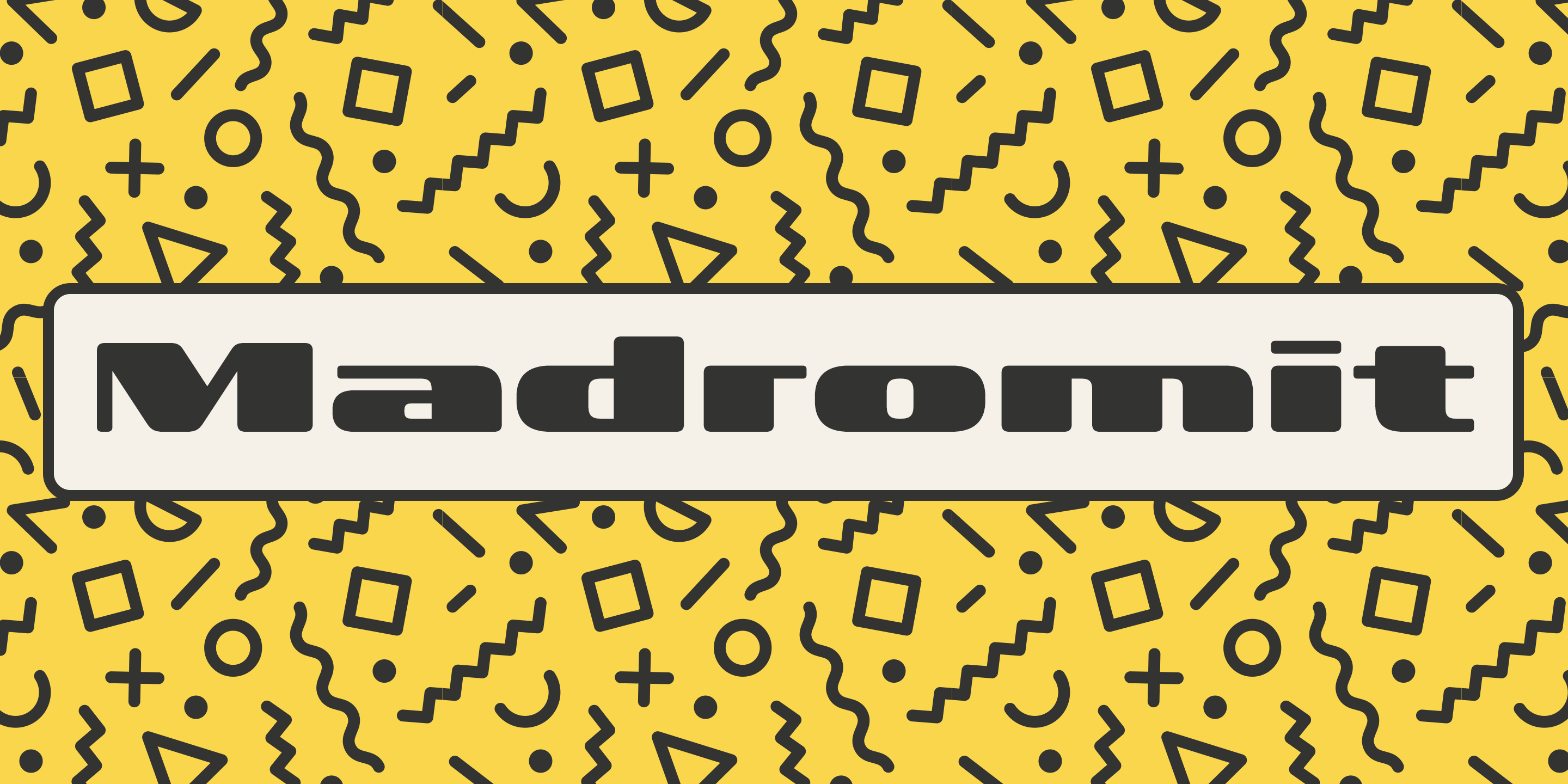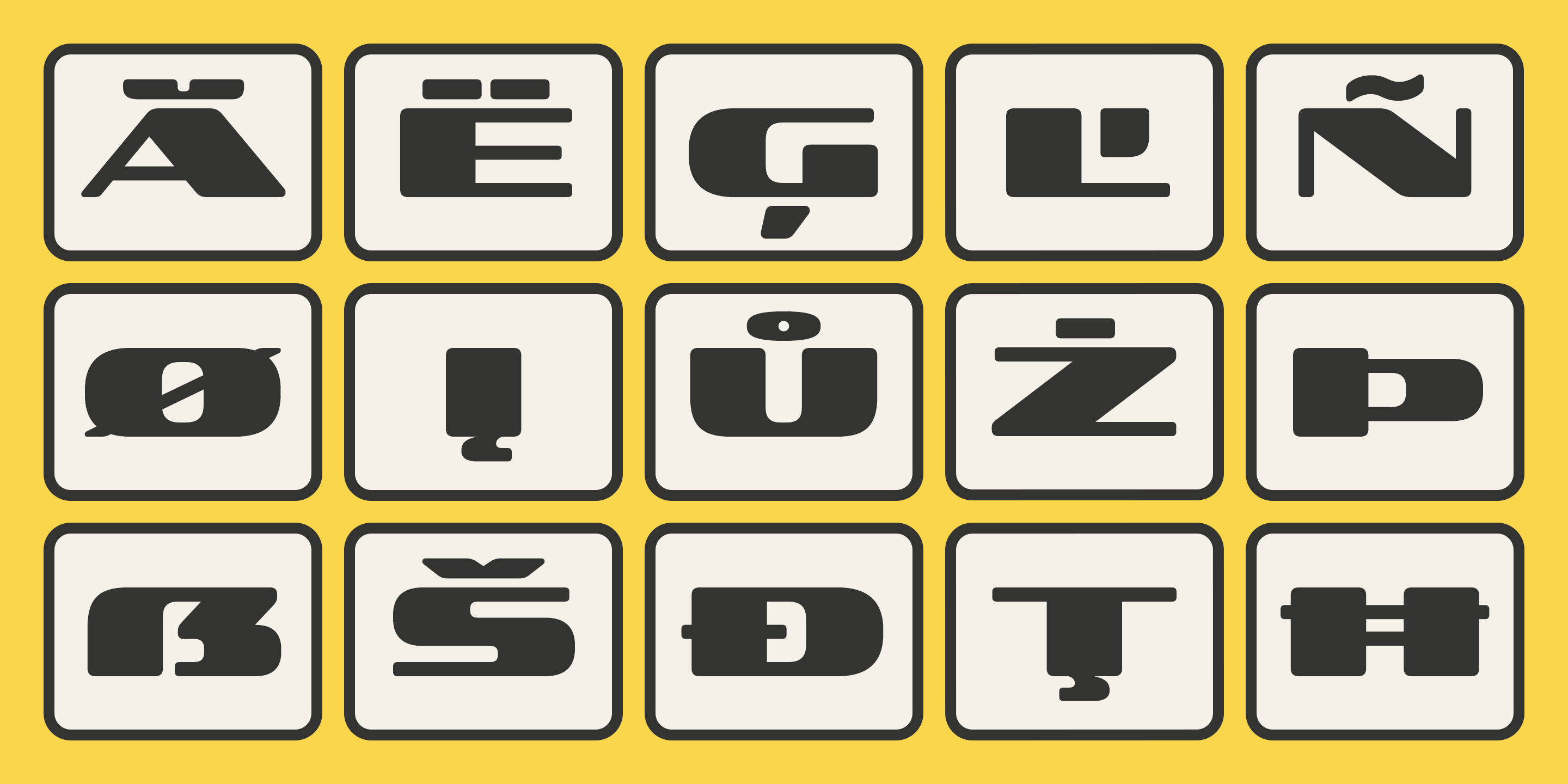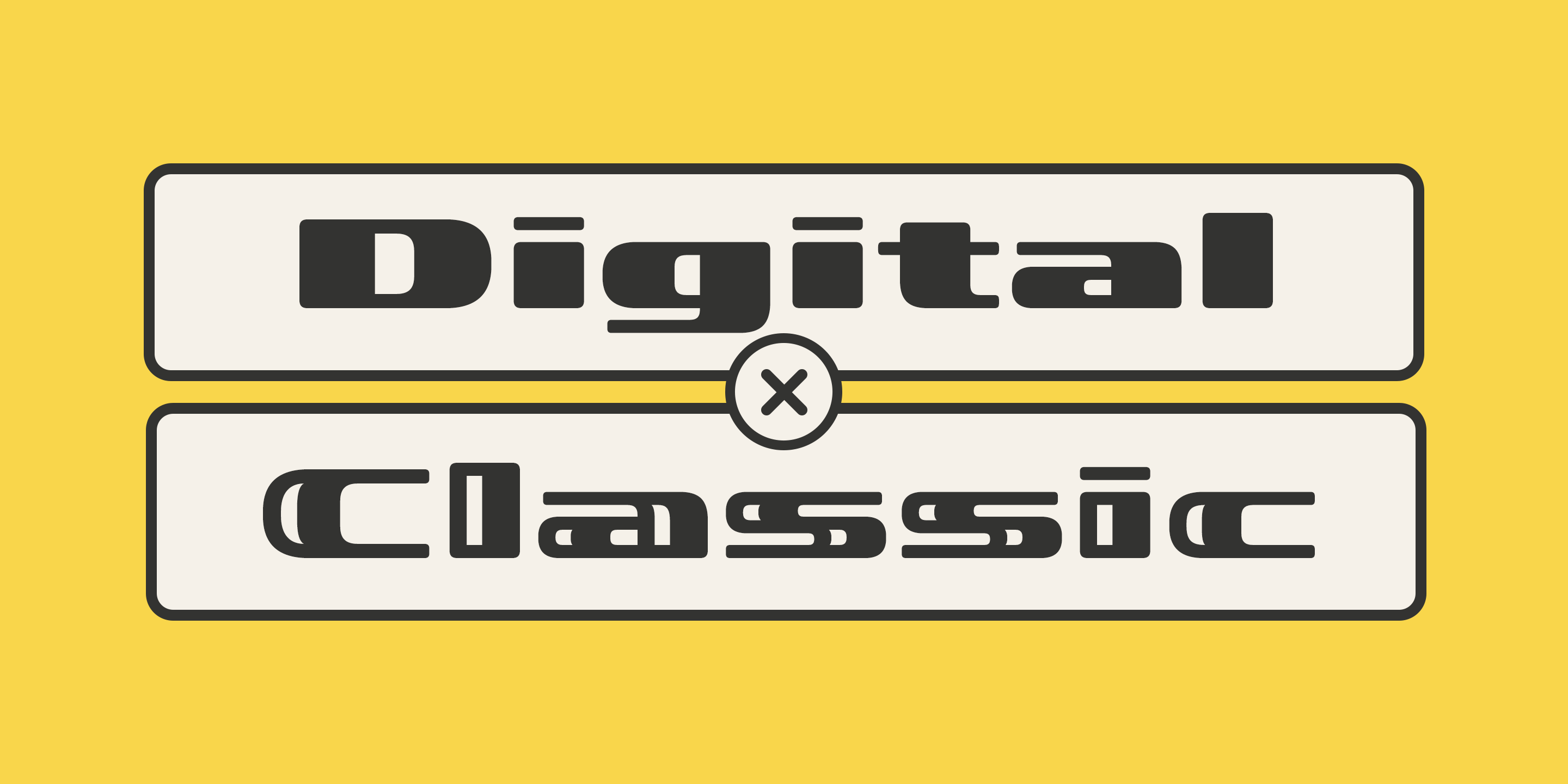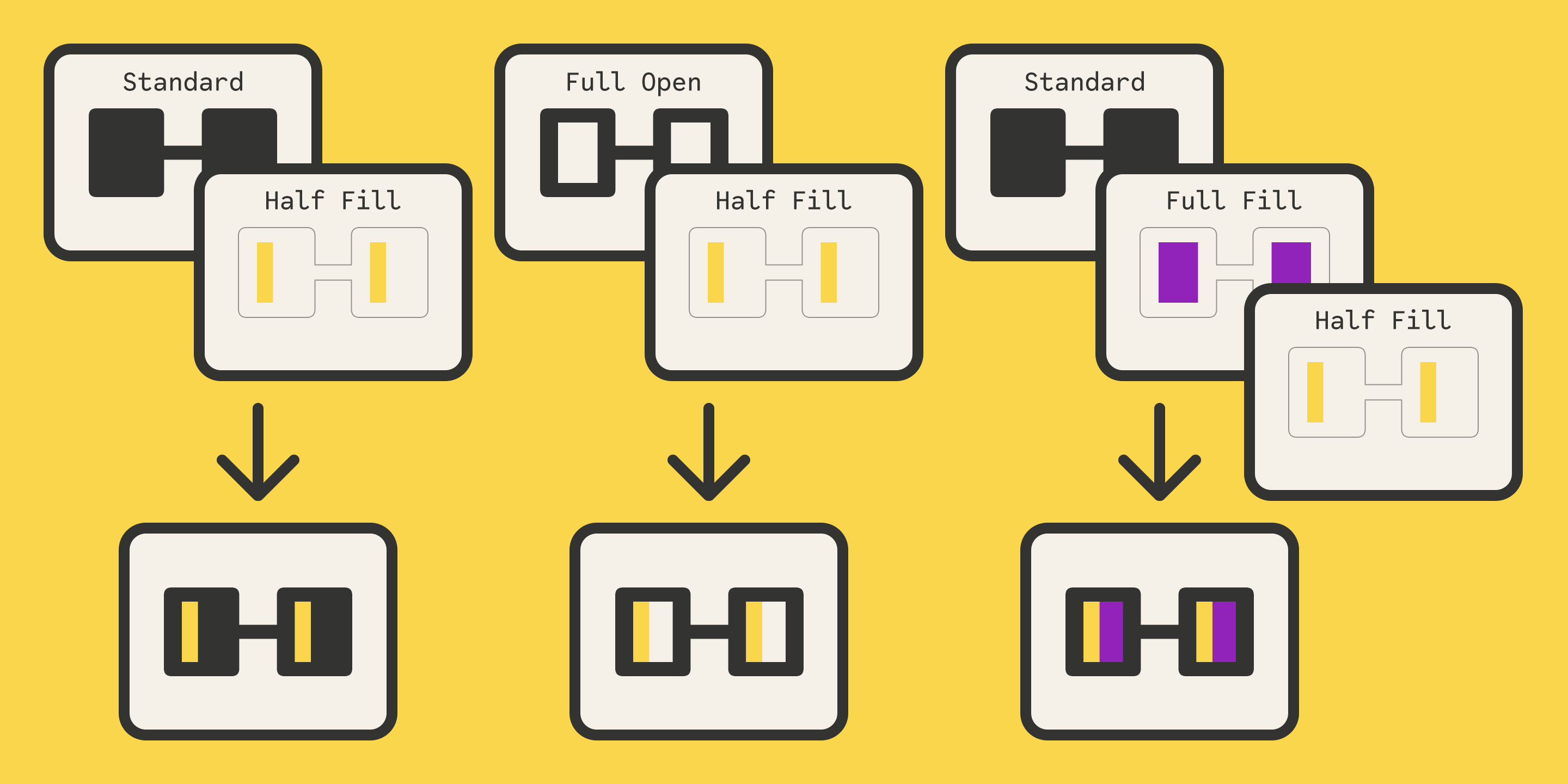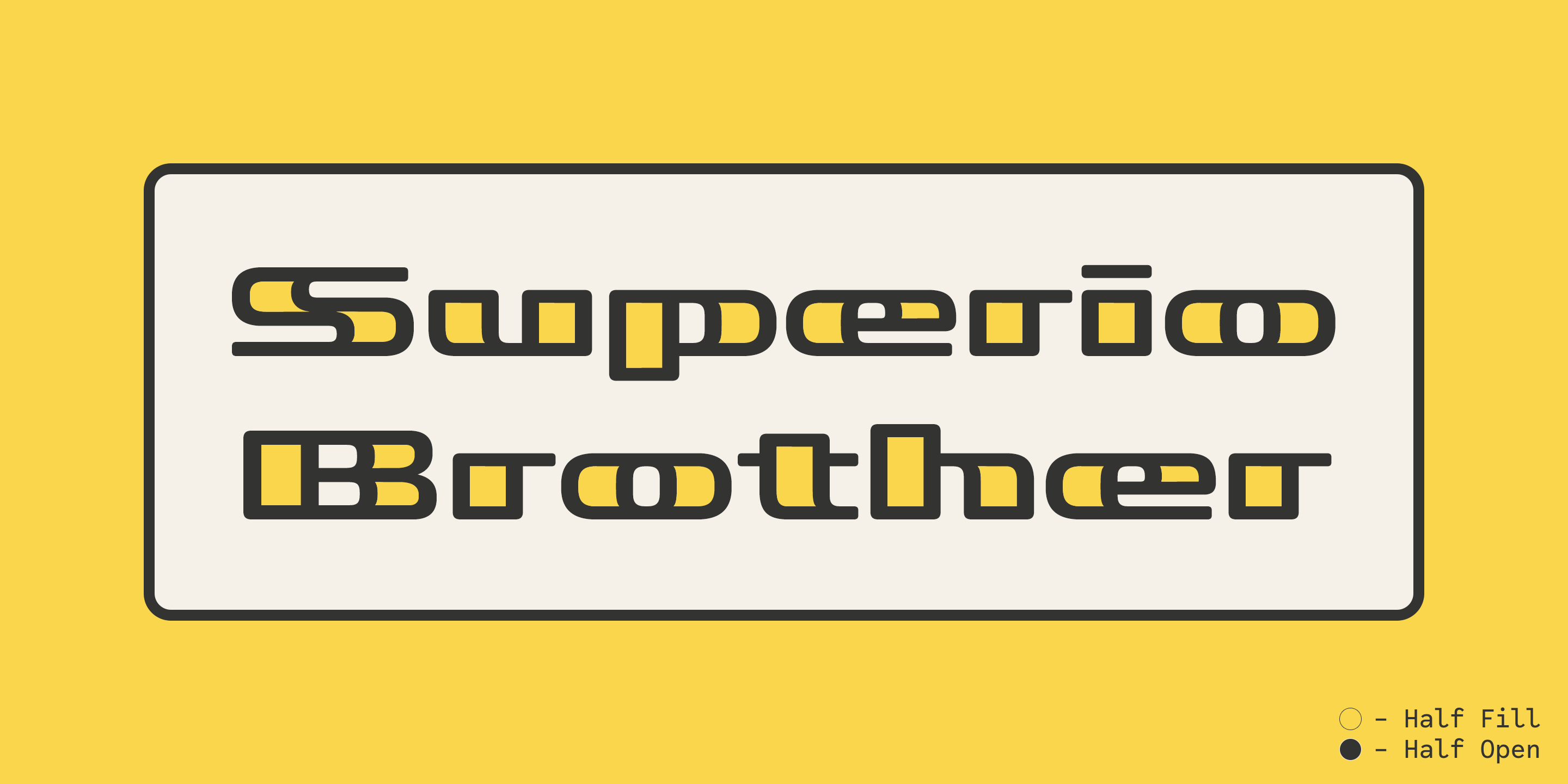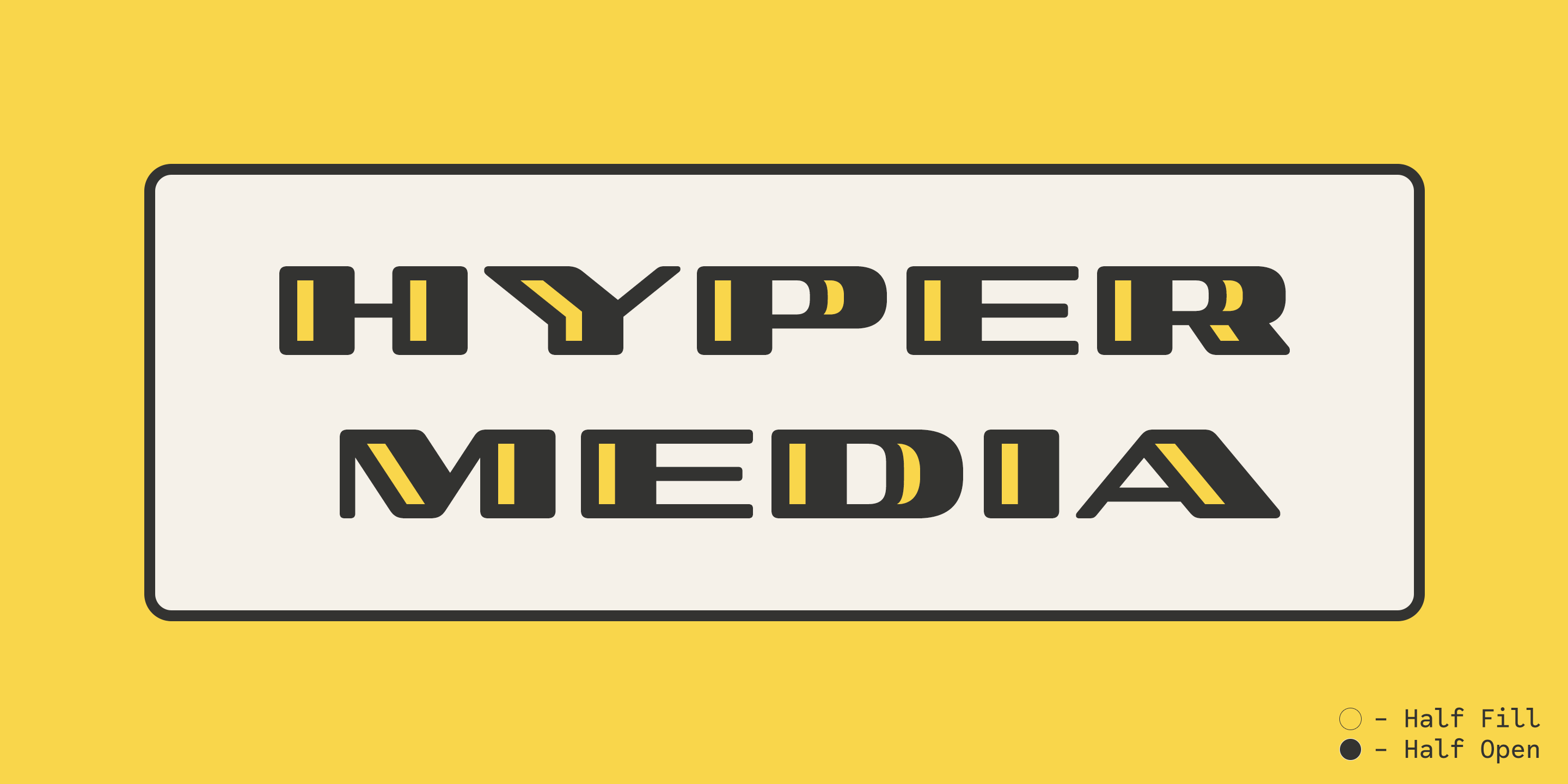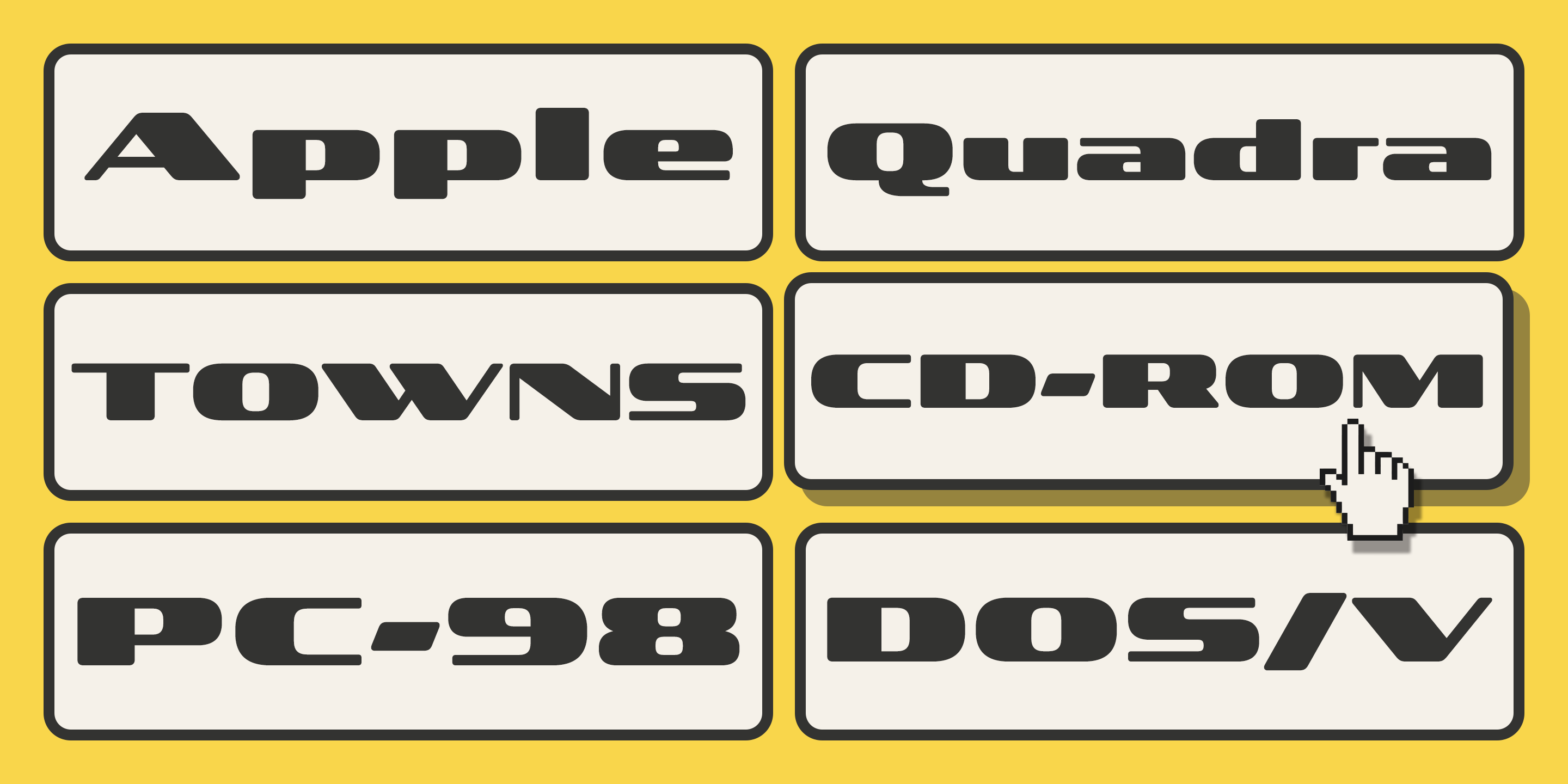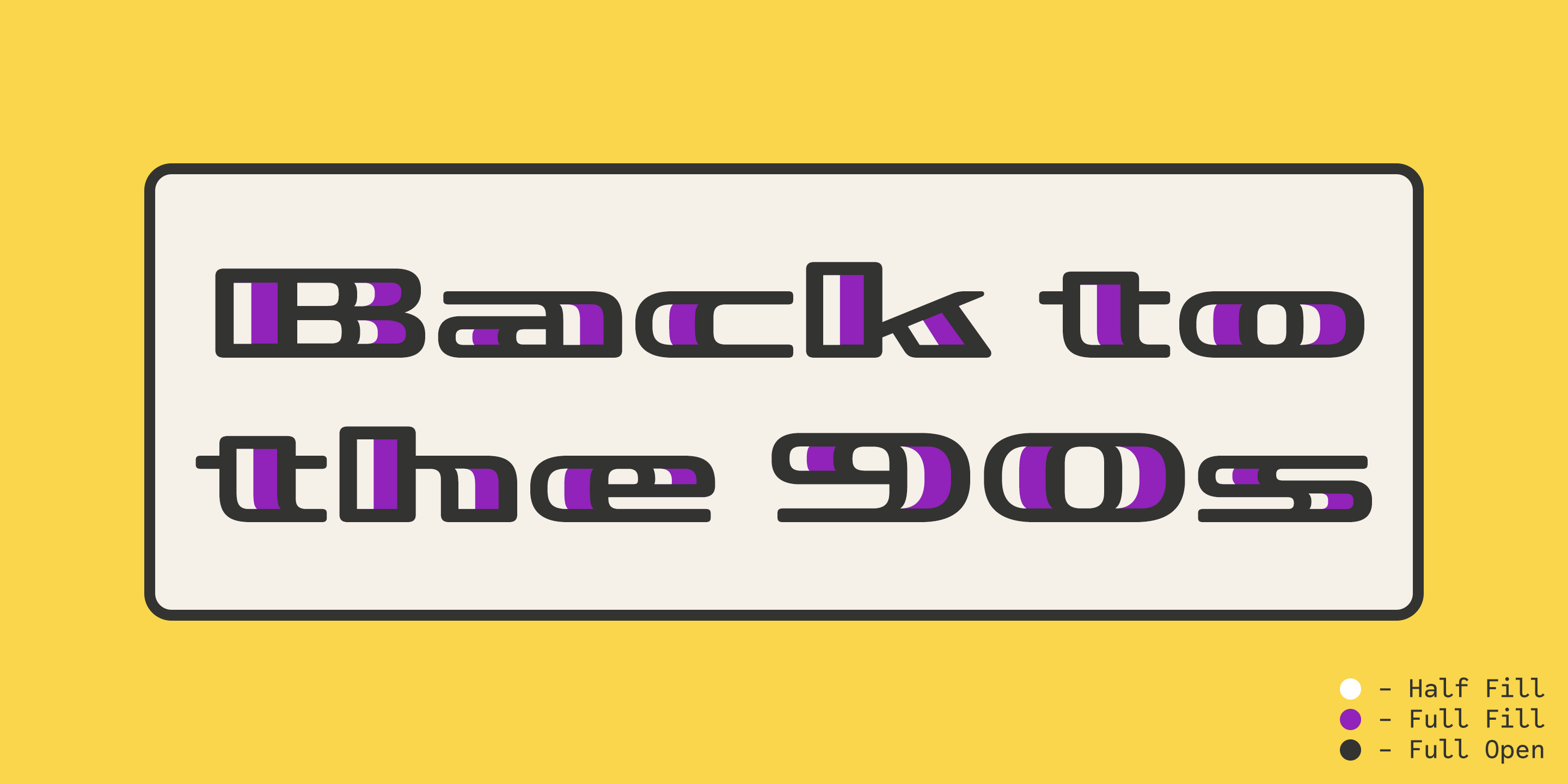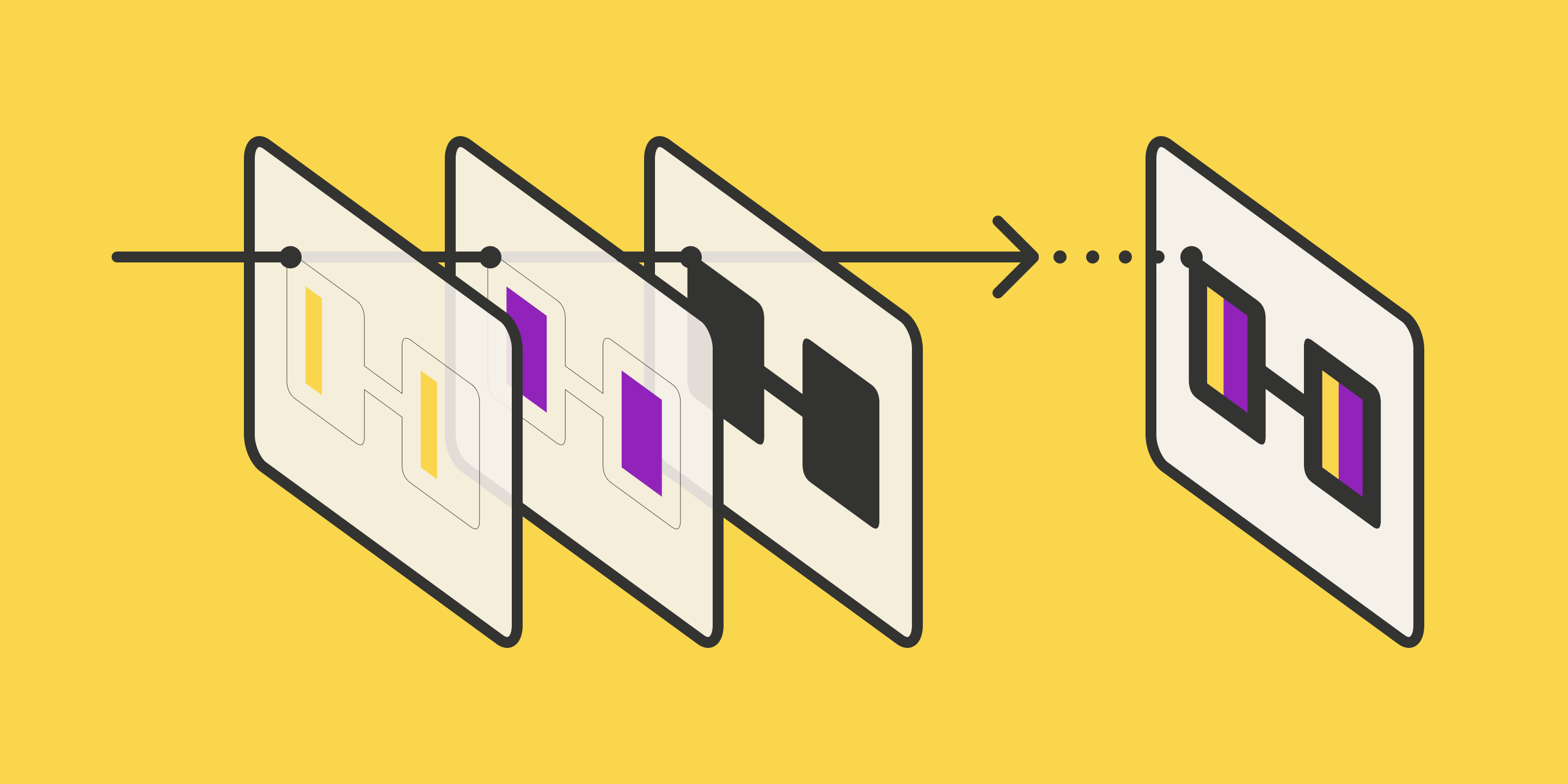
Madromit (5 fonts)
Do you remember computer advertisements in the 80s and 90s? Yes, it is the most exciting period in the history of computer. We call the design in this period Primitive Digital Design. Madromit is, so to speak, the revival or reconstruction of the primitive digital type in the period.
The structure and elements of this font are very simple and the key features are geometric shape and simple griddy design with rounded corners, oval bowls, and right-angled joints which we used to see in the primitive period.
In addition to this, Madromit has one more characteristic feature — classic engraving font —. It is called Open Style. Open style is one of the classic method to decorate and emphasize the font.
Our aim is the synergy by the mixture of primitive digital design and classic engraving method. This mixture makes new impression we have never seen before.
Madromit family consists of 5 styles for stacking color font. Please use Photoshop or Illustrator, or your favorite graphic design apps that can handle layers. Layers are the printing plates of wood type. You should be able to change text color for each layers.
Madromit ""Standard"" style is the base of this font family. You can add open effect by stacking ""Fill"" layers over the Standard layer.
Madromit Standard, Half Open, and Full Open style can be used solely."